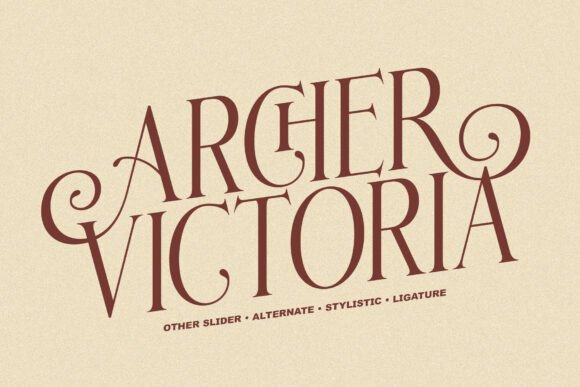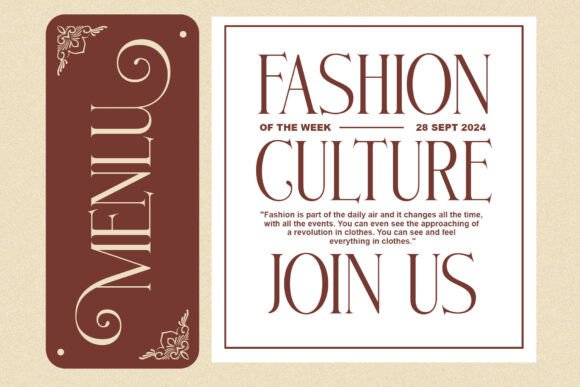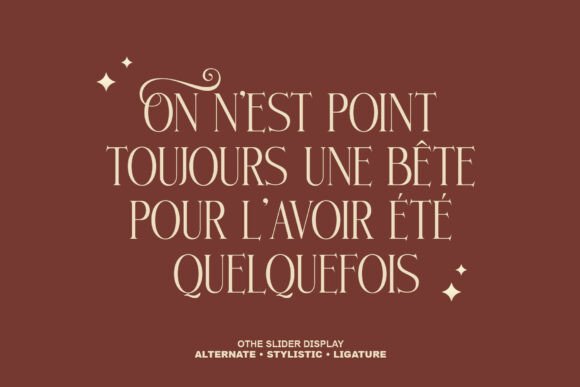
Introduction to Other Slider Font
Other Slider is a captivating modern display serif font that seamlessly blends classic elegance with a whimsical, retro-inspired flair.
Characterized by its high-contrast strokes and sophisticated curves, this typeface stands out with its elaborate swashes and fluid ligatures that give it a rhythmic, almost magical movement A unique feature of this font is the integration of star-shaped decorative accents, which add a β€œsparkling” and dreamy quality to the letterforms.